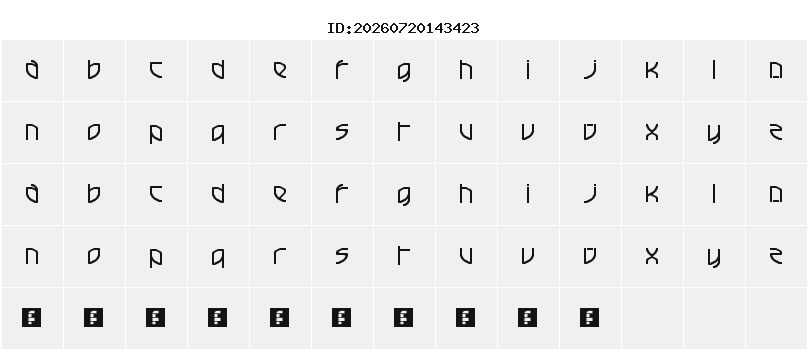
• Font Name: French Electric
• Designer: floor-3013
French Electric.ttf is a modern, elegant sans-serif font designed for ultimate readability and visual harmony. Perfect for branding, headlines, web design, and print materials.